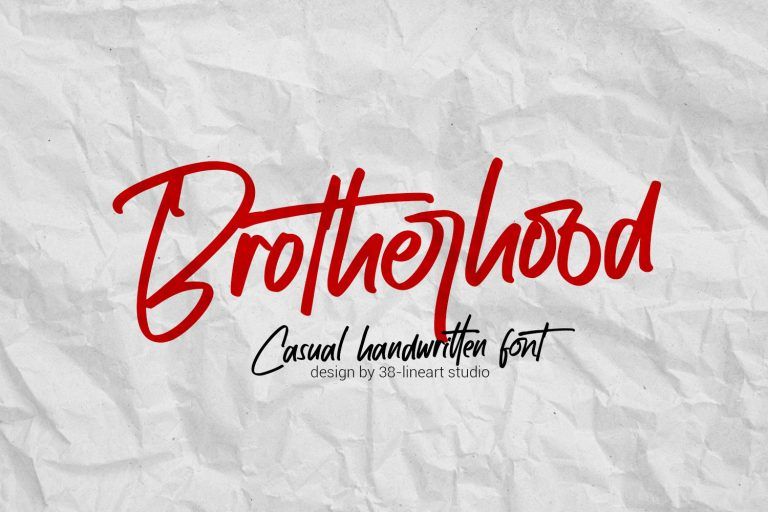
- Brotherhood
the current trend is social media, friendship connection applications and personal web portfolios, this media is used to tell about existence, most people like to upload photos on social media networks, even for personal web portfolios, sometimes people prefer to see the side of daily activities rather than products which is offered.
photos are visual responses, but there are many stories that can be told from a photo. It will look more interesting if it is added with captions. the very appropriate caption is the text in handwriting. This is what inspires us to create attractive handwriting for social media and networking.
We started to do a little research to see the trends of this type of font. here are some of our notes;
- Text is usually in the form of relaxed, non-connected handwriting.
- There are several glyphs made connected, usually in the texts that are joined by the letters ‘o’, ‘i’ and ‘y’. And double letters like ‘ll’ and ‘tt’. We anticipate this by making ligature for common texts written concatenated.
- For personal web portfolio needs, provide affirmation as a characteristic. So the first letter is usually in the form of uppercase which is more prominent than the lowercase rhythm. Prominent but still proportion.
So this is “Brotherhood” a handwritten font that you can use for personal brands, captions and even paragraph writing. Expand your friendship and make your business more closely to your customers as a Brotherhood with this font.